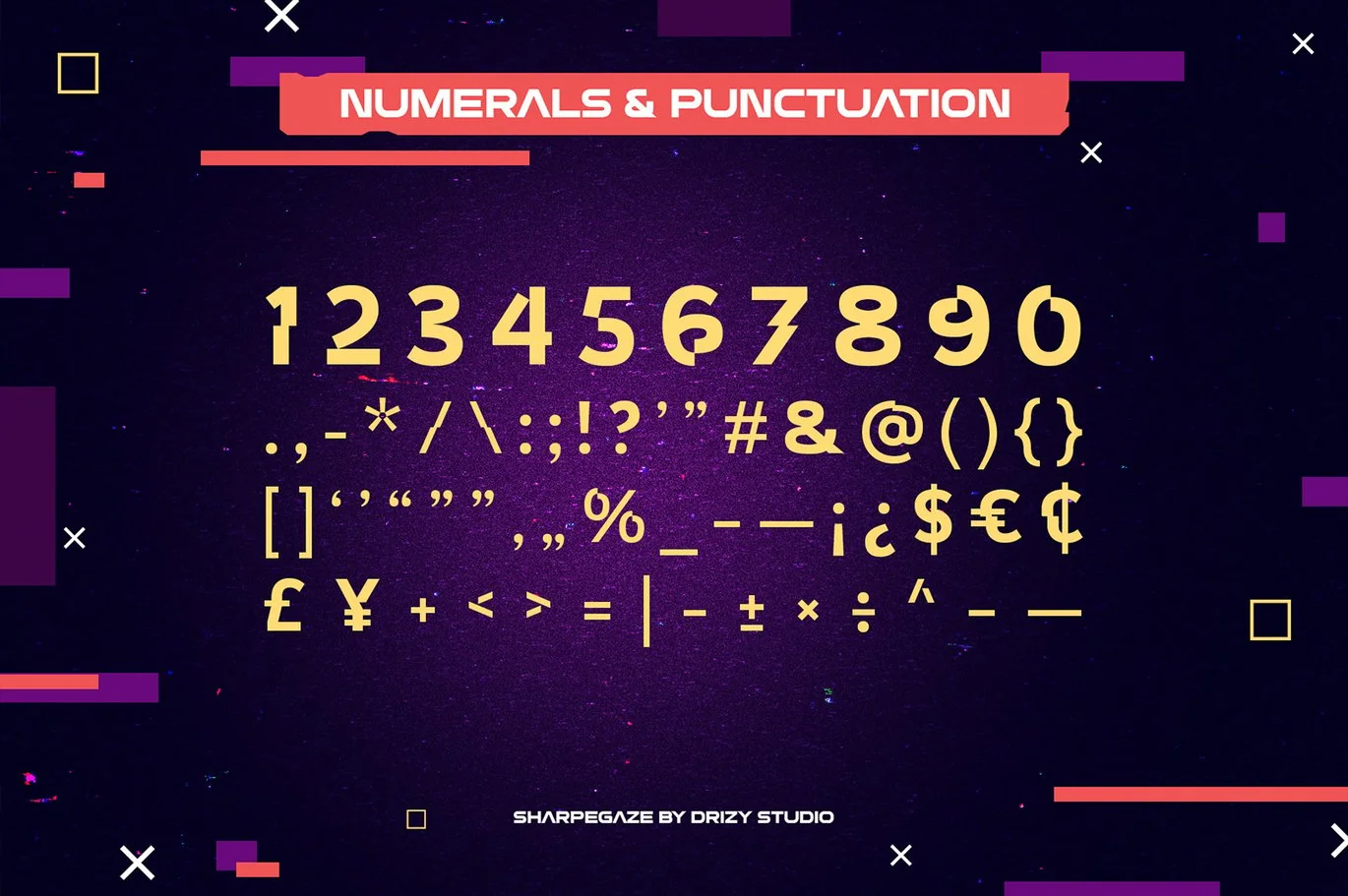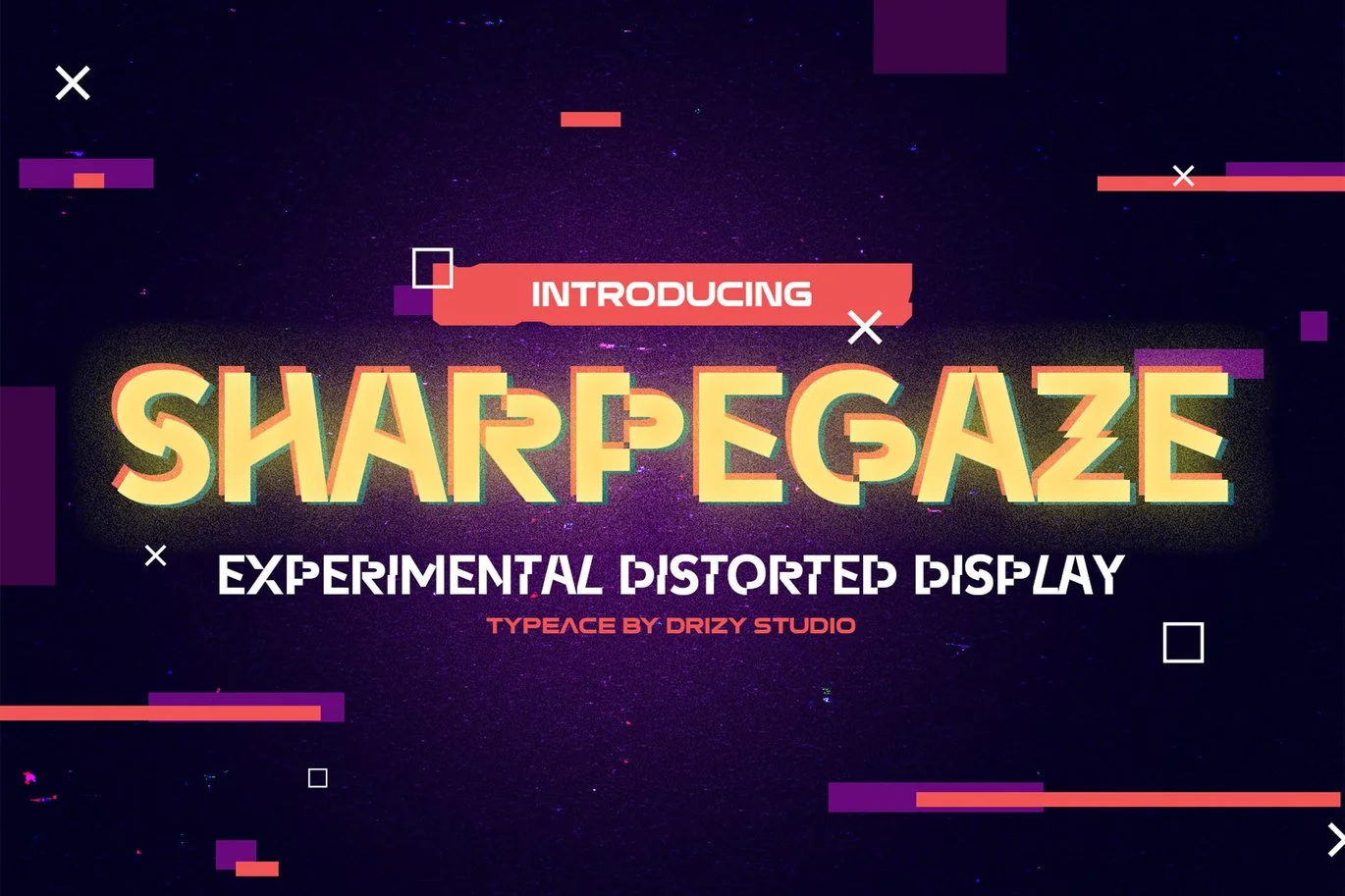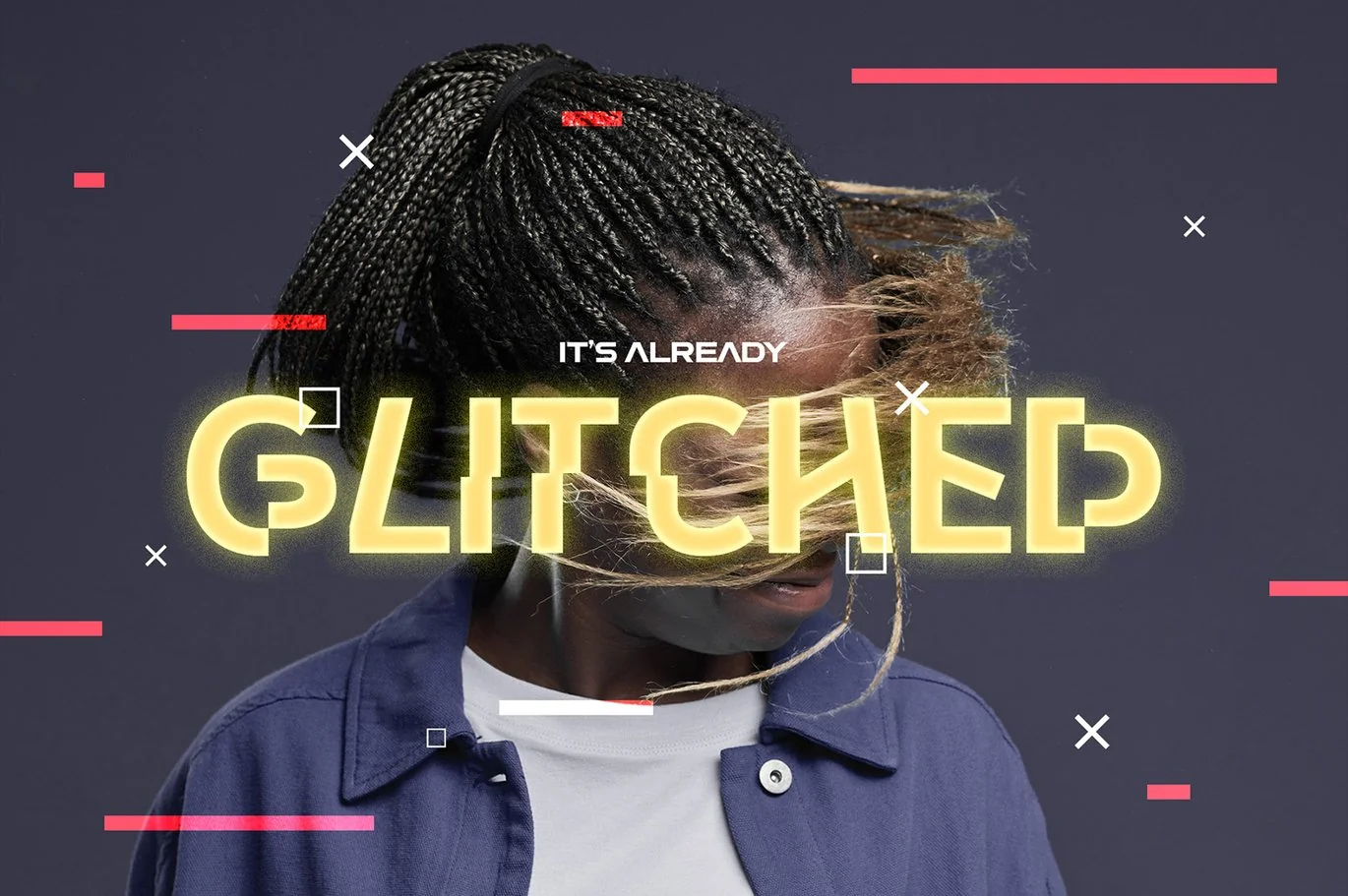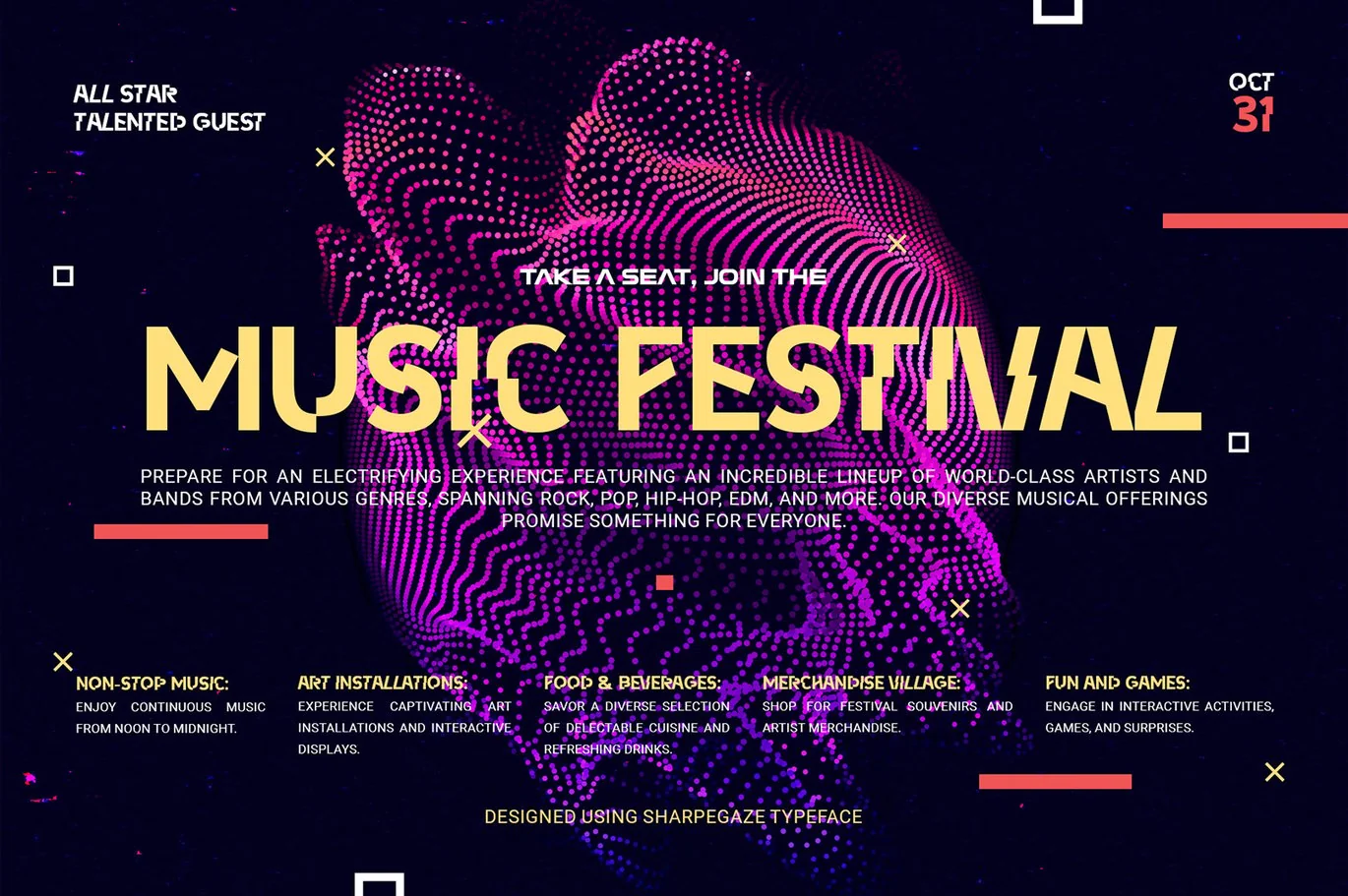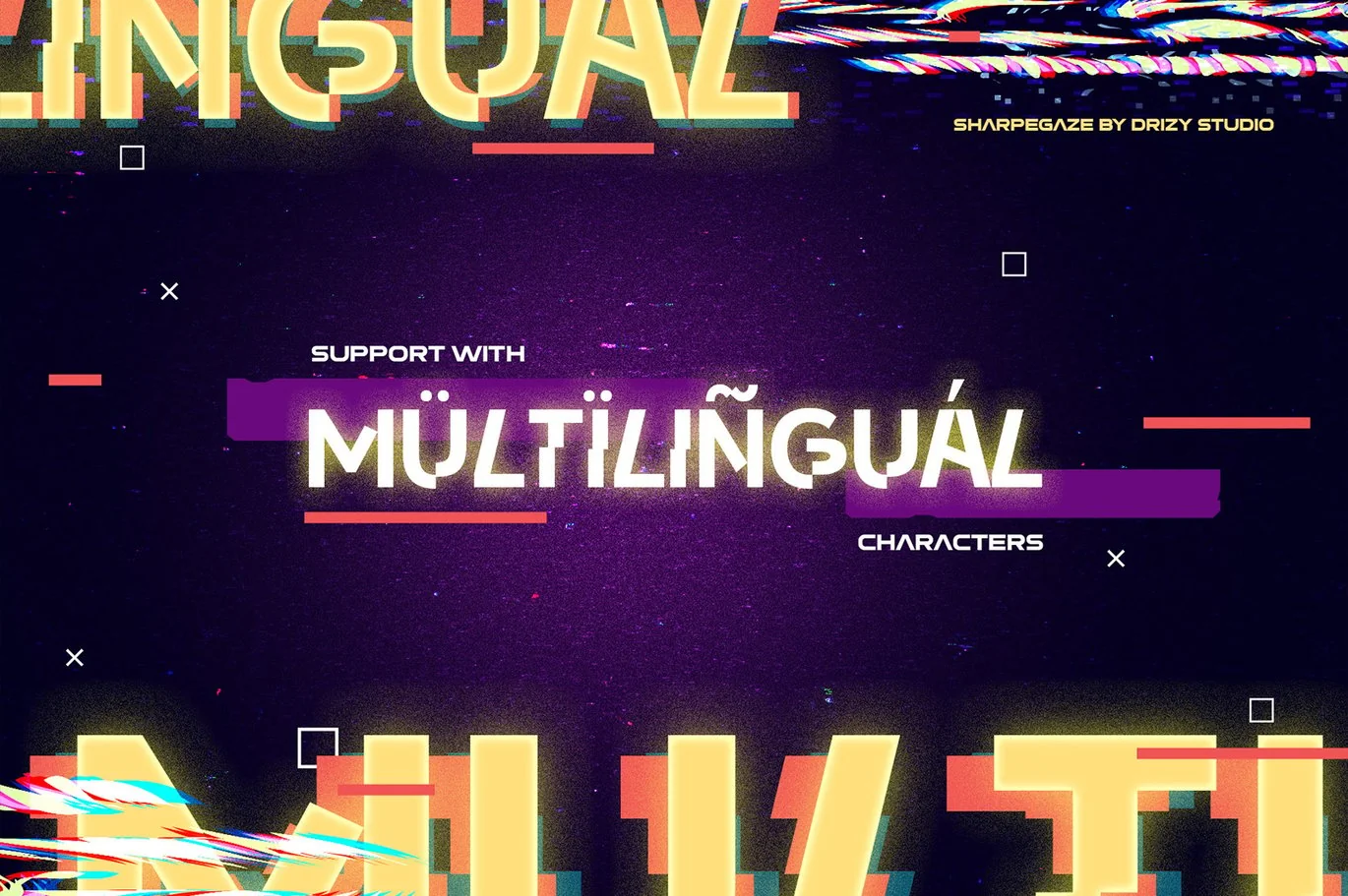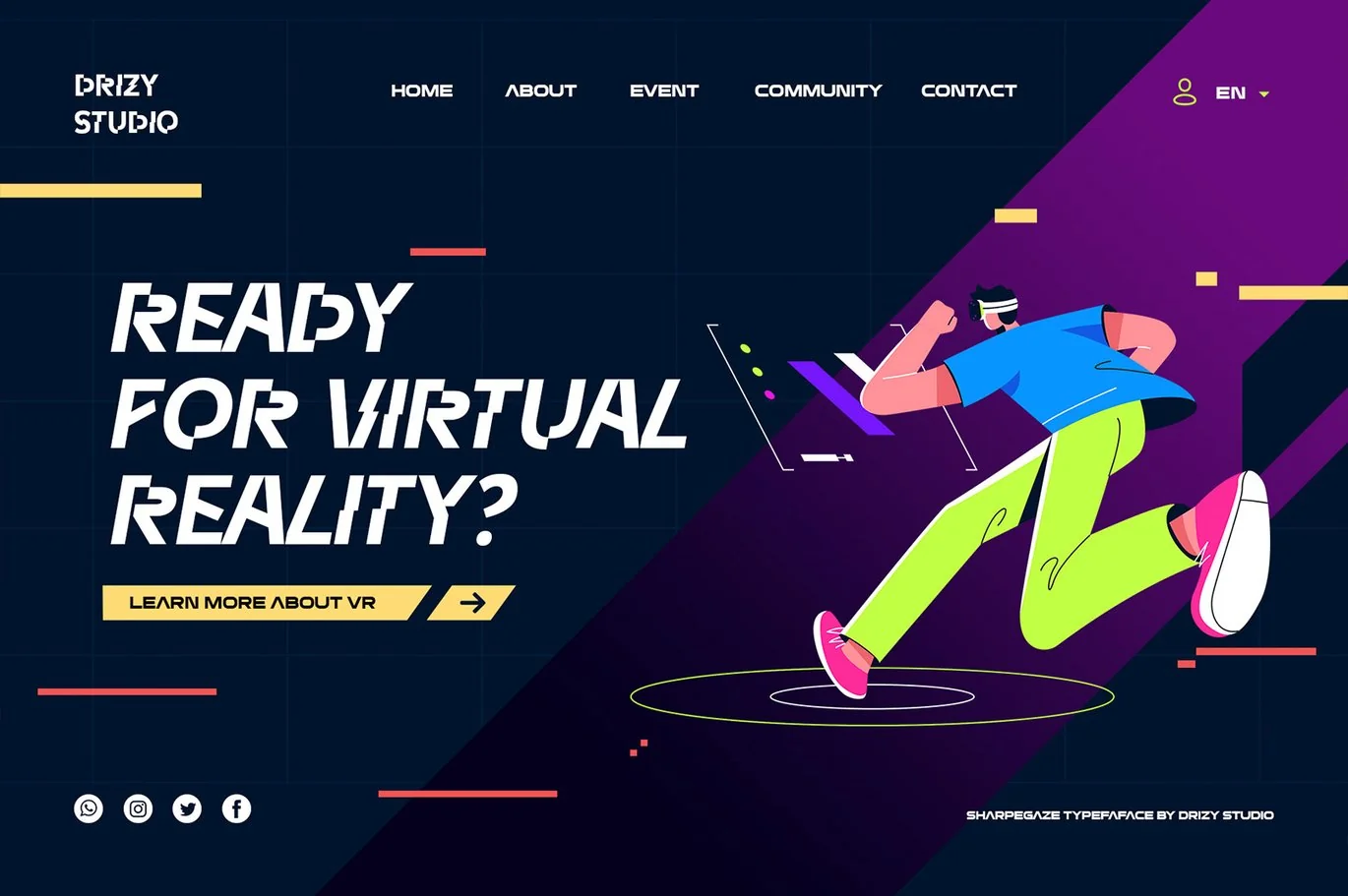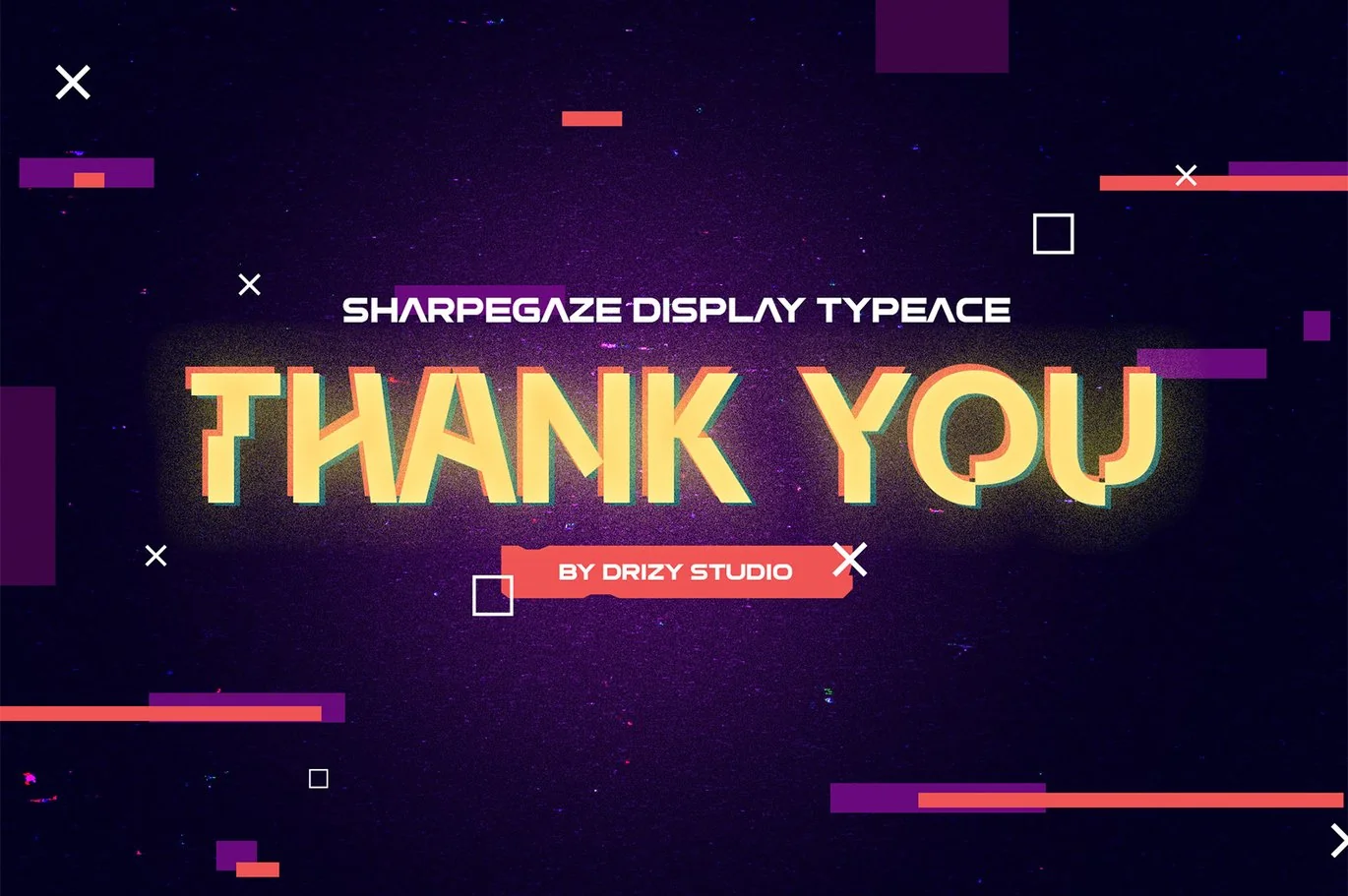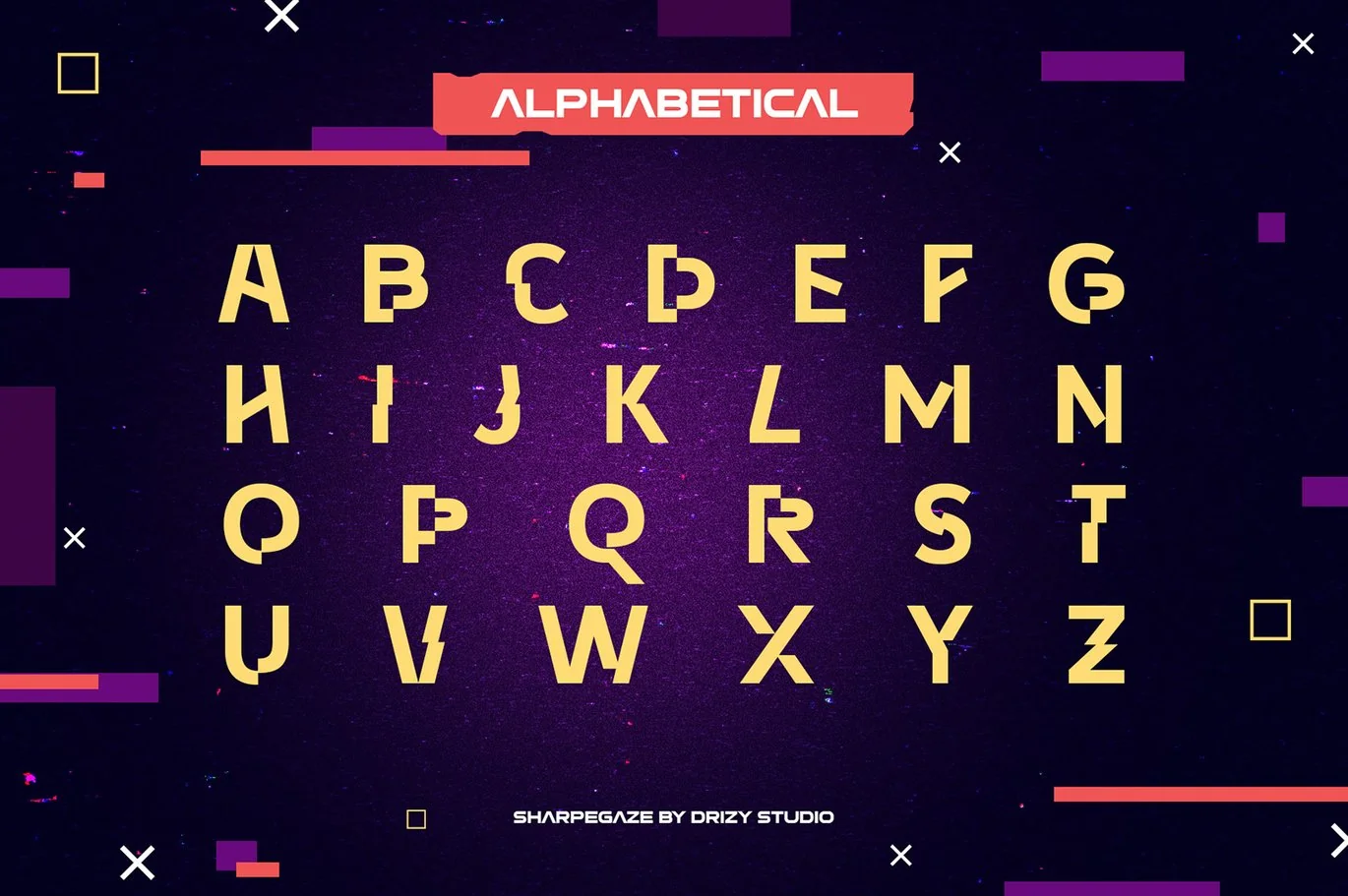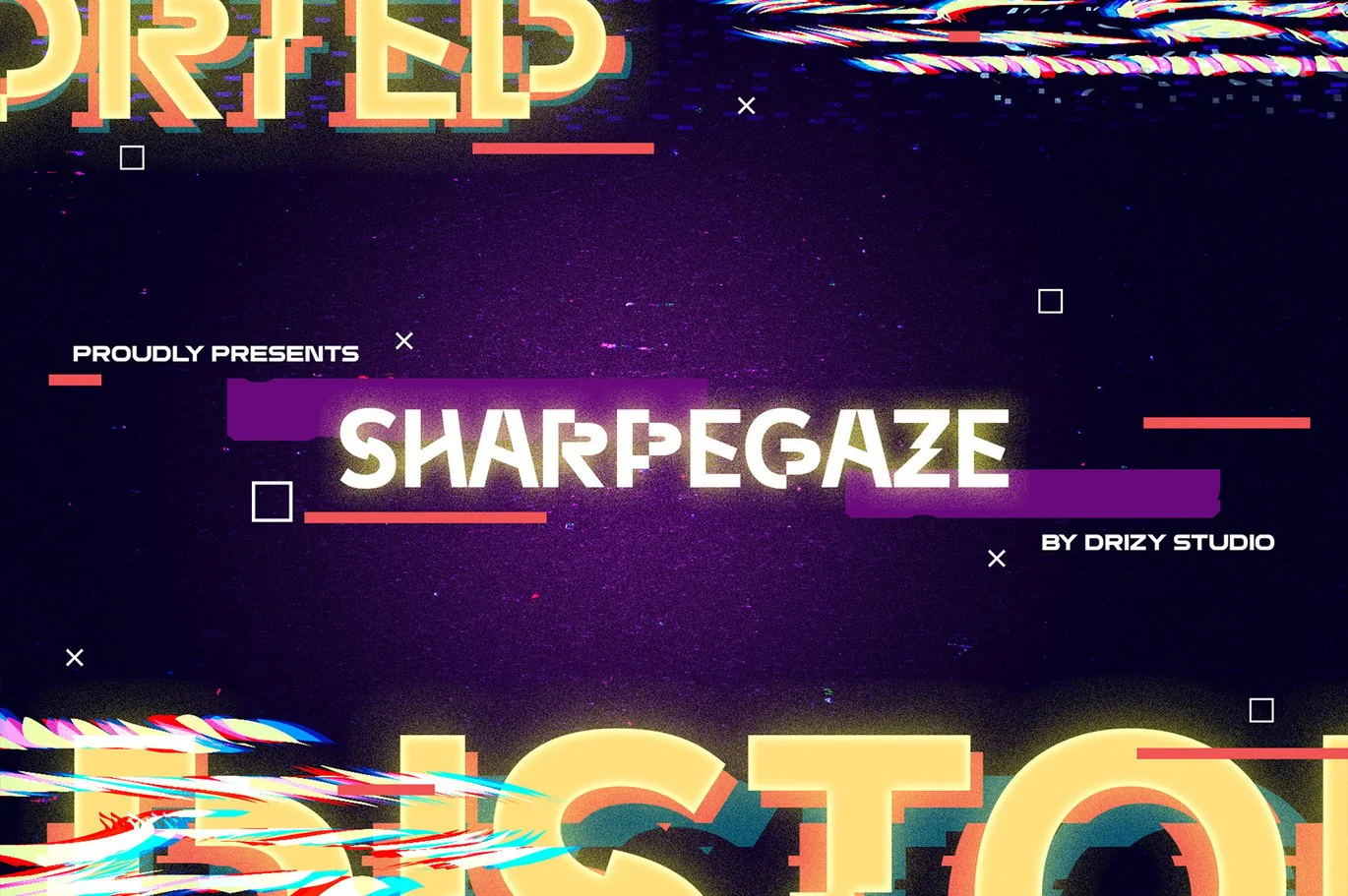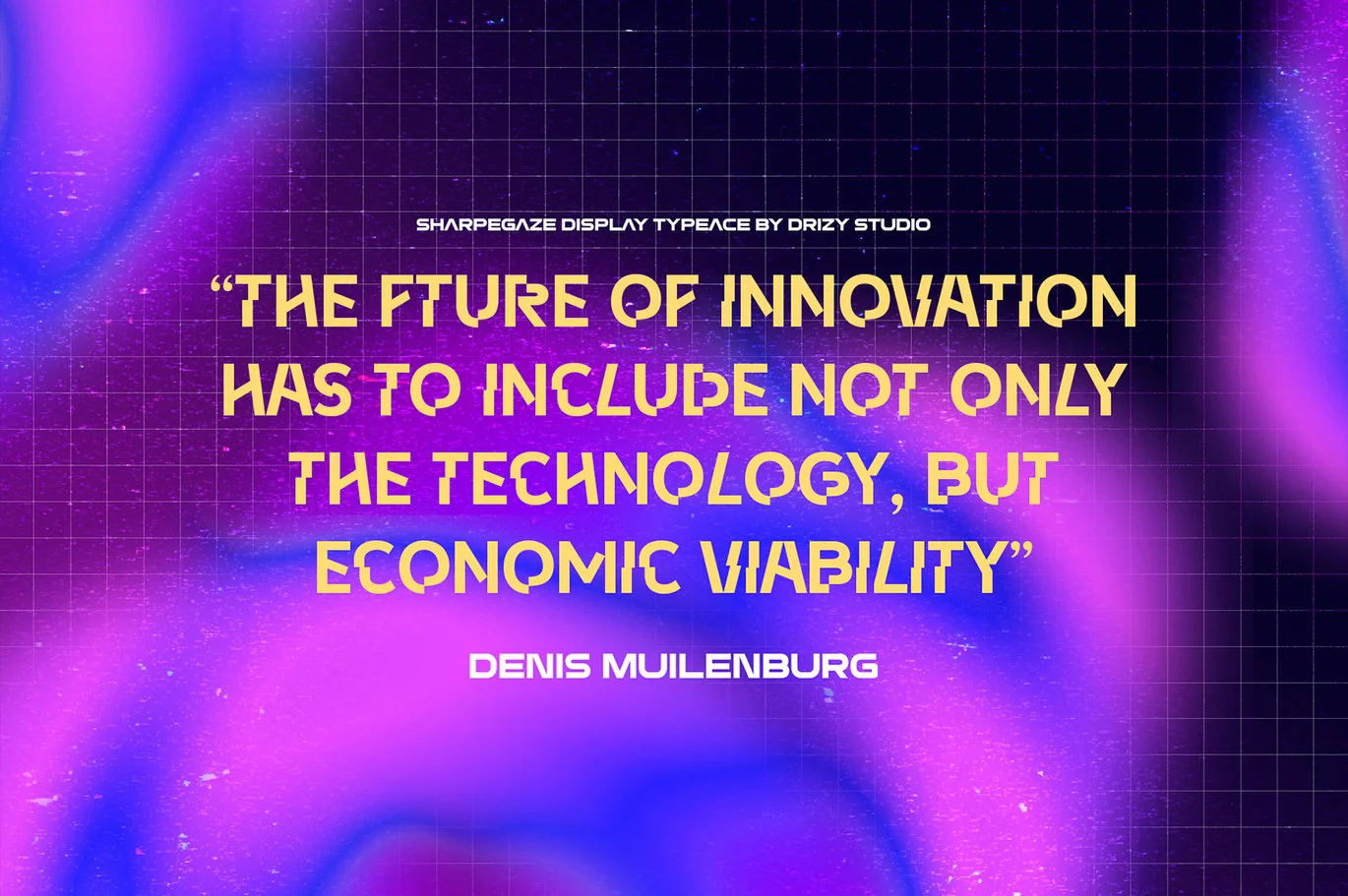
Sharpegaze – Experimental Distorted Font
“Introducing Sharpegaze – Experimental Distorted Font – a typeface that pushes the boundaries of conventional typography to create a unique and captivating visual experience. Designed to break the mold and inspire creativity in your projects.
Character Set
Explore the limitless of design possibilities with this experimental distorted font!